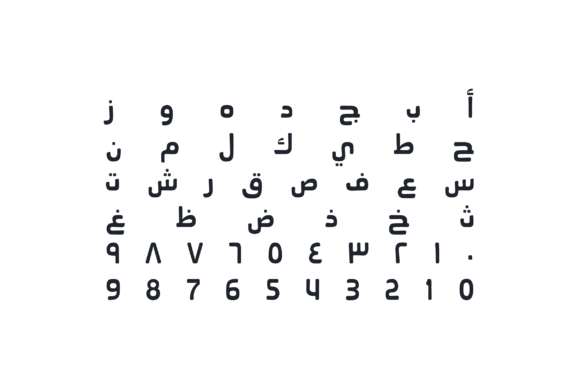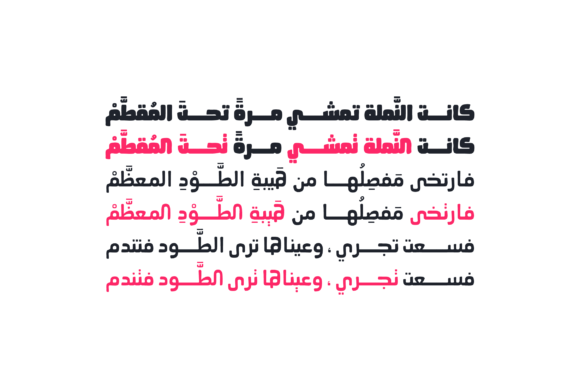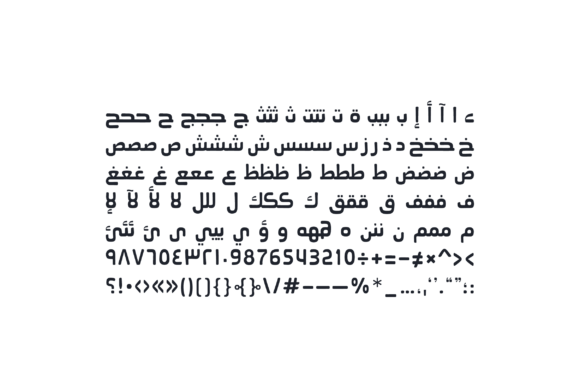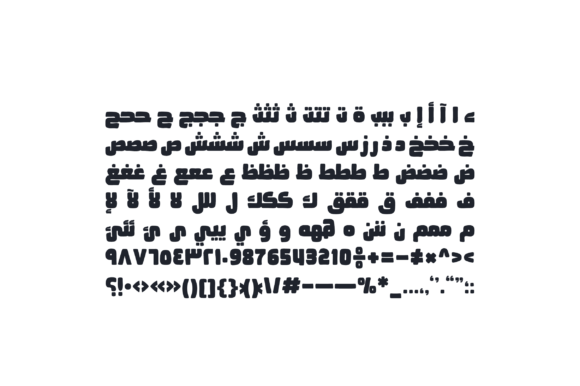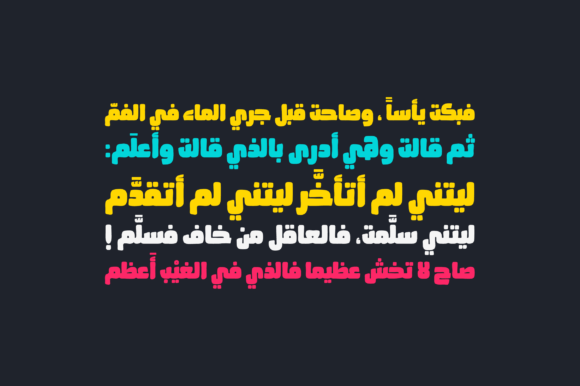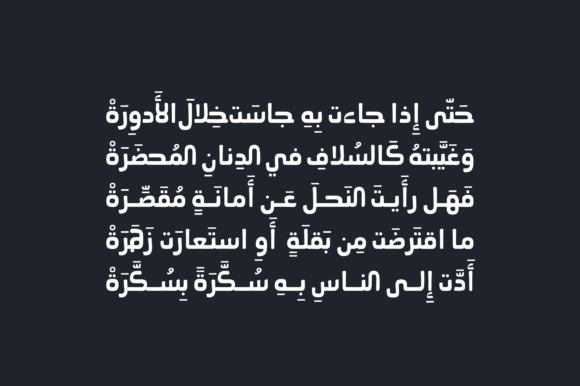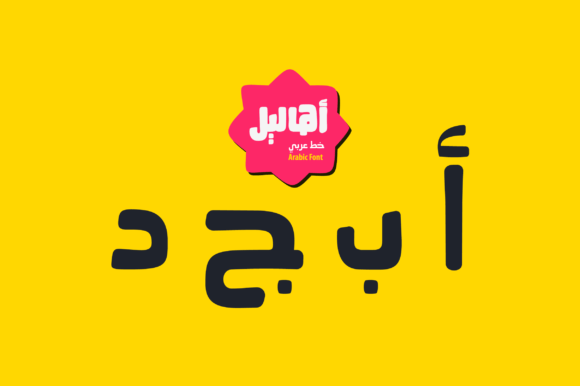
Ahaleel – The Funky and Casual Arabic Display Font
Are you a designer or crafty individual looking for a unique and eye-catching Arabic font to elevate your creative projects? Look no further than Ahaleel, a display font that exudes a funky and casual style while maintaining a solid geometric structure. In this article, we’ll dive into the world of Ahaleel and explore its features, uses, and benefits for designers and crafters.
What is Ahaleel?
Ahaleel is an Arabic display font designed with a funky and casual approach. Despite its spontaneous rendering, the letterforms are rooted in a solid geometric structure, making it both visually appealing and legible. This font is perfect for designers and crafters seeking to add a touch of playfulness and modernity to their projects.
Key Features of Ahaleel
- Funky and Casual Style: Ahaleel boasts a unique and trendy aesthetic that’s sure to grab attention.
- Solid Geometric Structure: The font’s geometric foundation ensures that the letterforms remain clear and readable.
- Arabic Display Font: Ahaleel is specifically designed for display purposes, making it ideal for titles, headings, and branding.
Primary Uses of Ahaleel
Ahaleel is primarily designed for:
- Titling and Branding: Use Ahaleel to create bold and eye-catching titles, logos, and brand identities.
- Children’s Books: The font’s playful and fun style makes it perfect for kids’ books, educational materials, and children’s magazines.
- Mobile Applications: Ahaleel is an excellent choice for mobile app design, adding a touch of personality and whimsy to your interface.
- Unique and Versatile: Ahaleel’s distinctive style allows you to stand out from the crowd and add a personal touch to your projects.
- Easily Readable: Despite its playful nature, Ahaleel remains legible, ensuring that your message is conveyed effectively.
Tips for Using Ahaleel Effectively
To get the most out of Ahaleel, consider the following tips:
- Experiment with Colors: Ahaleel looks great in bold and bright colors, so don’t be afraid to try out different hues.
- Mix and Match: Combine Ahaleel with other fonts to create a unique and visually appealing typography.
- Keep it Simple: Don’t overdo it – Ahaleel’s simplicity and elegance shine when used in moderation.